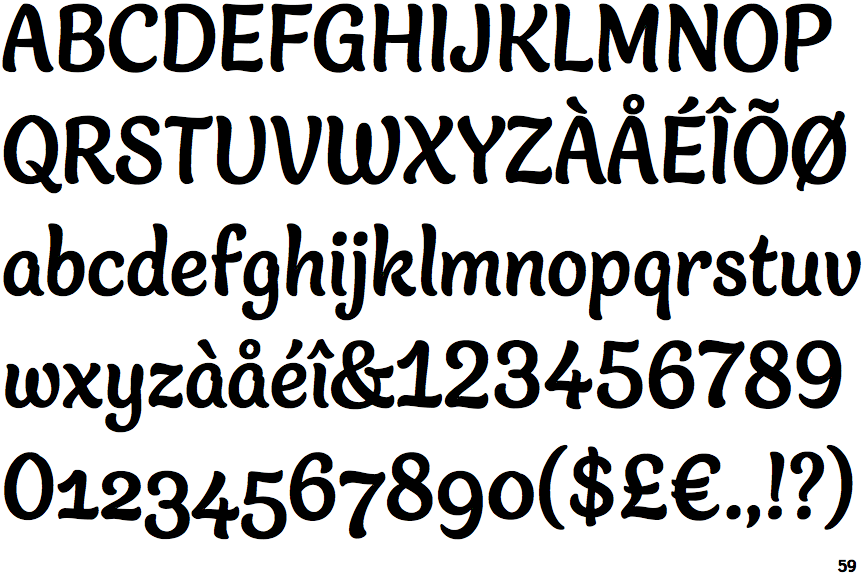
Blanket Heavy Font . Try it now or buy it at the. Download and install the blanket bold font for free from ffonts.net. Typographically sophisticated, it features a wealth of figure styles, automatic fractions, ligatures, alternates, case sensitive forms. Blanket is child friendly without being childish. Thousands of designers (famous or not) use the image font detection system to find a font or similar free fonts from an image. Buy & download blanket heavy, a font by dave rowland type. Heavy), 415 characters in total. Information about the font blanket heavy from eclectotype, and where to download it. Learn more about its features, similar fonts, and font pairing. 100 free fonts alternatives to blanket heavy What fonts are similar to blanket heavy? ️ this font has been downloaded 4,000+ times.
Thousands of designers (famous or not) use the image font detection system to find a font or similar free fonts from an image. Heavy), 415 characters in total. Information about the font blanket heavy from eclectotype, and where to download it. ️ this font has been downloaded 4,000+ times. Learn more about its features, similar fonts, and font pairing. What fonts are similar to blanket heavy? Try it now or buy it at the. 100 free fonts alternatives to blanket heavy Blanket is child friendly without being childish. Typographically sophisticated, it features a wealth of figure styles, automatic fractions, ligatures, alternates, case sensitive forms.
Blanket Heavy Font Blanket is child friendly without being childish. Learn more about its features, similar fonts, and font pairing. Try it now or buy it at the. ️ this font has been downloaded 4,000+ times. Typographically sophisticated, it features a wealth of figure styles, automatic fractions, ligatures, alternates, case sensitive forms. Heavy), 415 characters in total. Information about the font blanket heavy from eclectotype, and where to download it. What fonts are similar to blanket heavy? Blanket is child friendly without being childish. Thousands of designers (famous or not) use the image font detection system to find a font or similar free fonts from an image. Buy & download blanket heavy, a font by dave rowland type. 100 free fonts alternatives to blanket heavy Download and install the blanket bold font for free from ffonts.net.
Goldie Blanket font by Letterative Studio FontRiver Blanket Heavy Font Typographically sophisticated, it features a wealth of figure styles, automatic fractions, ligatures, alternates, case sensitive forms. Heavy), 415 characters in total. ️ this font has been downloaded 4,000+ times. What fonts are similar to blanket heavy? Thousands of designers (famous or not) use the image font detection system to find a font or similar free fonts from an image. Buy. Blanket Heavy Font.
Thick Blanket Font by Misterletter.co · Creative Fabrica Blanket Heavy Font ️ this font has been downloaded 4,000+ times. Buy & download blanket heavy, a font by dave rowland type. Learn more about its features, similar fonts, and font pairing. Download and install the blanket bold font for free from ffonts.net. Typographically sophisticated, it features a wealth of figure styles, automatic fractions, ligatures, alternates, case sensitive forms. Thousands of designers (famous. Blanket Heavy Font.
Blankets Font by Creatype Designer · Creative Fabrica Blanket Heavy Font 100 free fonts alternatives to blanket heavy Learn more about its features, similar fonts, and font pairing. Typographically sophisticated, it features a wealth of figure styles, automatic fractions, ligatures, alternates, case sensitive forms. Download and install the blanket bold font for free from ffonts.net. Buy & download blanket heavy, a font by dave rowland type. Thousands of designers (famous or. Blanket Heavy Font.
Blanket Font Fontspring Blanket Heavy Font 100 free fonts alternatives to blanket heavy Typographically sophisticated, it features a wealth of figure styles, automatic fractions, ligatures, alternates, case sensitive forms. What fonts are similar to blanket heavy? Buy & download blanket heavy, a font by dave rowland type. Blanket is child friendly without being childish. Learn more about its features, similar fonts, and font pairing. Information about. Blanket Heavy Font.
Monogrammed Blanket With New Big Script Font Personalized Etsy Blanket Heavy Font Learn more about its features, similar fonts, and font pairing. Try it now or buy it at the. Thousands of designers (famous or not) use the image font detection system to find a font or similar free fonts from an image. Heavy), 415 characters in total. What fonts are similar to blanket heavy? ️ this font has been downloaded 4,000+. Blanket Heavy Font.
Blanket Font Free embroidery designs, Free embroidery, Embroidery fonts Blanket Heavy Font ️ this font has been downloaded 4,000+ times. Download and install the blanket bold font for free from ffonts.net. Learn more about its features, similar fonts, and font pairing. Typographically sophisticated, it features a wealth of figure styles, automatic fractions, ligatures, alternates, case sensitive forms. Blanket is child friendly without being childish. Heavy), 415 characters in total. Buy & download. Blanket Heavy Font.
Personalized Name Blanket Custom Font and Color Options Etsy Custom Blanket Heavy Font Heavy), 415 characters in total. What fonts are similar to blanket heavy? Learn more about its features, similar fonts, and font pairing. Thousands of designers (famous or not) use the image font detection system to find a font or similar free fonts from an image. Information about the font blanket heavy from eclectotype, and where to download it. ️ this. Blanket Heavy Font.
Blanket Type Font Blanket Heavy Font Try it now or buy it at the. Information about the font blanket heavy from eclectotype, and where to download it. 100 free fonts alternatives to blanket heavy Blanket is child friendly without being childish. ️ this font has been downloaded 4,000+ times. Buy & download blanket heavy, a font by dave rowland type. Thousands of designers (famous or not). Blanket Heavy Font.
Download free Blanket BdOutlineObl font BlanketBdOutlineObl.otf Blanket Heavy Font Thousands of designers (famous or not) use the image font detection system to find a font or similar free fonts from an image. Typographically sophisticated, it features a wealth of figure styles, automatic fractions, ligatures, alternates, case sensitive forms. Heavy), 415 characters in total. What fonts are similar to blanket heavy? Blanket is child friendly without being childish. Learn more. Blanket Heavy Font.
Blanket Font Download Free for Desktop & font Blanket Heavy Font Heavy), 415 characters in total. Try it now or buy it at the. Learn more about its features, similar fonts, and font pairing. Typographically sophisticated, it features a wealth of figure styles, automatic fractions, ligatures, alternates, case sensitive forms. ️ this font has been downloaded 4,000+ times. What fonts are similar to blanket heavy? Information about the font blanket heavy. Blanket Heavy Font.
Blanket Font Family Download Free for Desktop & font Blanket Heavy Font Buy & download blanket heavy, a font by dave rowland type. Try it now or buy it at the. Download and install the blanket bold font for free from ffonts.net. Information about the font blanket heavy from eclectotype, and where to download it. ️ this font has been downloaded 4,000+ times. Typographically sophisticated, it features a wealth of figure styles,. Blanket Heavy Font.
KDAGR Flannel Throw Blanket White Lettering of Fonts ABC Letters and Blanket Heavy Font Information about the font blanket heavy from eclectotype, and where to download it. Blanket is child friendly without being childish. Heavy), 415 characters in total. Learn more about its features, similar fonts, and font pairing. Thousands of designers (famous or not) use the image font detection system to find a font or similar free fonts from an image. 100 free. Blanket Heavy Font.
47 Thick and Heavy Fonts Built To Make a Huge Impact Free Fonts Vault Blanket Heavy Font Blanket is child friendly without being childish. Typographically sophisticated, it features a wealth of figure styles, automatic fractions, ligatures, alternates, case sensitive forms. Buy & download blanket heavy, a font by dave rowland type. Learn more about its features, similar fonts, and font pairing. Heavy), 415 characters in total. What fonts are similar to blanket heavy? Information about the font. Blanket Heavy Font.
Blanket Outline font Free fonts on Creazilla Blanket Heavy Font Try it now or buy it at the. 100 free fonts alternatives to blanket heavy Typographically sophisticated, it features a wealth of figure styles, automatic fractions, ligatures, alternates, case sensitive forms. Learn more about its features, similar fonts, and font pairing. Blanket is child friendly without being childish. Heavy), 415 characters in total. What fonts are similar to blanket heavy?. Blanket Heavy Font.
Blanket Regular PREMIUM Font Blanket Heavy Font 100 free fonts alternatives to blanket heavy Heavy), 415 characters in total. Blanket is child friendly without being childish. Learn more about its features, similar fonts, and font pairing. Buy & download blanket heavy, a font by dave rowland type. ️ this font has been downloaded 4,000+ times. Information about the font blanket heavy from eclectotype, and where to download. Blanket Heavy Font.
Blanket font Blanket Heavy Font Blanket is child friendly without being childish. 100 free fonts alternatives to blanket heavy Download and install the blanket bold font for free from ffonts.net. Buy & download blanket heavy, a font by dave rowland type. Learn more about its features, similar fonts, and font pairing. Information about the font blanket heavy from eclectotype, and where to download it. Try. Blanket Heavy Font.
Blanket Font Fontspring Blanket Heavy Font 100 free fonts alternatives to blanket heavy Information about the font blanket heavy from eclectotype, and where to download it. Heavy), 415 characters in total. Typographically sophisticated, it features a wealth of figure styles, automatic fractions, ligatures, alternates, case sensitive forms. Learn more about its features, similar fonts, and font pairing. Blanket is child friendly without being childish. Download and. Blanket Heavy Font.
Blanket Font Blanket Heavy Font Learn more about its features, similar fonts, and font pairing. Blanket is child friendly without being childish. Information about the font blanket heavy from eclectotype, and where to download it. What fonts are similar to blanket heavy? Heavy), 415 characters in total. Thousands of designers (famous or not) use the image font detection system to find a font or similar. Blanket Heavy Font.
Blankets font by Kateeng Ciu FontRiver Blanket Heavy Font 100 free fonts alternatives to blanket heavy What fonts are similar to blanket heavy? Learn more about its features, similar fonts, and font pairing. Typographically sophisticated, it features a wealth of figure styles, automatic fractions, ligatures, alternates, case sensitive forms. Information about the font blanket heavy from eclectotype, and where to download it. Try it now or buy it at. Blanket Heavy Font.
Blanket Regular PREMIUM Font Blanket Heavy Font Download and install the blanket bold font for free from ffonts.net. 100 free fonts alternatives to blanket heavy Thousands of designers (famous or not) use the image font detection system to find a font or similar free fonts from an image. Buy & download blanket heavy, a font by dave rowland type. Blanket is child friendly without being childish. Information. Blanket Heavy Font.
Personalized Font Blanket Personalized Name Blanket Personalised Blanket Heavy Font Blanket is child friendly without being childish. ️ this font has been downloaded 4,000+ times. Buy & download blanket heavy, a font by dave rowland type. Typographically sophisticated, it features a wealth of figure styles, automatic fractions, ligatures, alternates, case sensitive forms. Try it now or buy it at the. Information about the font blanket heavy from eclectotype, and where. Blanket Heavy Font.
620 Gloria Blanket Applique Font Embroidery fonts, Applique, Blanket Heavy Font 100 free fonts alternatives to blanket heavy Learn more about its features, similar fonts, and font pairing. Buy & download blanket heavy, a font by dave rowland type. Information about the font blanket heavy from eclectotype, and where to download it. Heavy), 415 characters in total. Download and install the blanket bold font for free from ffonts.net. Thousands of designers. Blanket Heavy Font.
Goldie Blanket Font Blanket Heavy Font Download and install the blanket bold font for free from ffonts.net. What fonts are similar to blanket heavy? Heavy), 415 characters in total. Typographically sophisticated, it features a wealth of figure styles, automatic fractions, ligatures, alternates, case sensitive forms. Blanket is child friendly without being childish. 100 free fonts alternatives to blanket heavy Buy & download blanket heavy, a font. Blanket Heavy Font.
Personalized Name Blanket Typewriter Font Pick Your Color Etsy Baby Blanket Heavy Font Blanket is child friendly without being childish. Buy & download blanket heavy, a font by dave rowland type. Thousands of designers (famous or not) use the image font detection system to find a font or similar free fonts from an image. Download and install the blanket bold font for free from ffonts.net. Information about the font blanket heavy from eclectotype,. Blanket Heavy Font.
Blanket Font Fontspring Blanket Heavy Font What fonts are similar to blanket heavy? Heavy), 415 characters in total. Learn more about its features, similar fonts, and font pairing. Download and install the blanket bold font for free from ffonts.net. Blanket is child friendly without being childish. Buy & download blanket heavy, a font by dave rowland type. ️ this font has been downloaded 4,000+ times. Information. Blanket Heavy Font.
Blankets Font download free Blanket Heavy Font Information about the font blanket heavy from eclectotype, and where to download it. Thousands of designers (famous or not) use the image font detection system to find a font or similar free fonts from an image. Download and install the blanket bold font for free from ffonts.net. ️ this font has been downloaded 4,000+ times. Heavy), 415 characters in total.. Blanket Heavy Font.
Blankets font by Kateeng Ciu FontRiver Blanket Heavy Font Learn more about its features, similar fonts, and font pairing. Try it now or buy it at the. Download and install the blanket bold font for free from ffonts.net. Heavy), 415 characters in total. Typographically sophisticated, it features a wealth of figure styles, automatic fractions, ligatures, alternates, case sensitive forms. What fonts are similar to blanket heavy? Buy & download. Blanket Heavy Font.
Blanket PosterObl font Free fonts on Creazilla Blanket Heavy Font Thousands of designers (famous or not) use the image font detection system to find a font or similar free fonts from an image. Download and install the blanket bold font for free from ffonts.net. Try it now or buy it at the. 100 free fonts alternatives to blanket heavy Typographically sophisticated, it features a wealth of figure styles, automatic fractions,. Blanket Heavy Font.
Blanket Type Font Blanket Heavy Font Heavy), 415 characters in total. ️ this font has been downloaded 4,000+ times. 100 free fonts alternatives to blanket heavy Blanket is child friendly without being childish. Learn more about its features, similar fonts, and font pairing. Buy & download blanket heavy, a font by dave rowland type. What fonts are similar to blanket heavy? Try it now or buy. Blanket Heavy Font.
Blanket Font Fontspring Blanket Heavy Font Blanket is child friendly without being childish. Buy & download blanket heavy, a font by dave rowland type. ️ this font has been downloaded 4,000+ times. What fonts are similar to blanket heavy? Information about the font blanket heavy from eclectotype, and where to download it. Heavy), 415 characters in total. Typographically sophisticated, it features a wealth of figure styles,. Blanket Heavy Font.
Blanket Bd font Free fonts on Creazilla Blanket Heavy Font ️ this font has been downloaded 4,000+ times. Download and install the blanket bold font for free from ffonts.net. Blanket is child friendly without being childish. What fonts are similar to blanket heavy? Typographically sophisticated, it features a wealth of figure styles, automatic fractions, ligatures, alternates, case sensitive forms. Thousands of designers (famous or not) use the image font detection. Blanket Heavy Font.
Blanket Type Font download free Blanket Heavy Font Information about the font blanket heavy from eclectotype, and where to download it. Thousands of designers (famous or not) use the image font detection system to find a font or similar free fonts from an image. Heavy), 415 characters in total. Try it now or buy it at the. Download and install the blanket bold font for free from ffonts.net.. Blanket Heavy Font.
Download free Blanket BdOutlineObl font BlanketBdOutlineObl.otf Blanket Heavy Font Information about the font blanket heavy from eclectotype, and where to download it. Learn more about its features, similar fonts, and font pairing. What fonts are similar to blanket heavy? Try it now or buy it at the. ️ this font has been downloaded 4,000+ times. 100 free fonts alternatives to blanket heavy Heavy), 415 characters in total. Download and. Blanket Heavy Font.
Blanket Font by william jhordy · Creative Fabrica Blanket Heavy Font Learn more about its features, similar fonts, and font pairing. Blanket is child friendly without being childish. Heavy), 415 characters in total. Thousands of designers (famous or not) use the image font detection system to find a font or similar free fonts from an image. Typographically sophisticated, it features a wealth of figure styles, automatic fractions, ligatures, alternates, case sensitive. Blanket Heavy Font.
Identifont Blanket Bold Blanket Heavy Font Typographically sophisticated, it features a wealth of figure styles, automatic fractions, ligatures, alternates, case sensitive forms. What fonts are similar to blanket heavy? Information about the font blanket heavy from eclectotype, and where to download it. Download and install the blanket bold font for free from ffonts.net. Blanket is child friendly without being childish. Try it now or buy it. Blanket Heavy Font.